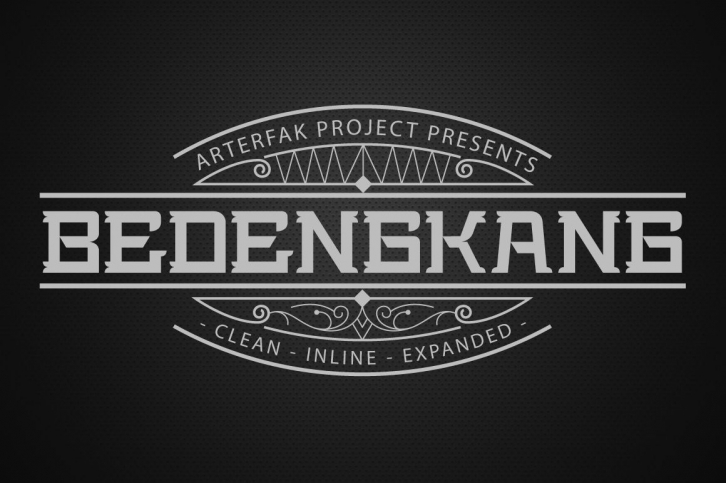
Introducing "Bedengkang" Typeface, the elegance slab serif, available in three style : Clean - Inline - Expanded. Designed specifically to maximize your products and design projects.
• Standard Punctuation
• Some latin glyphs